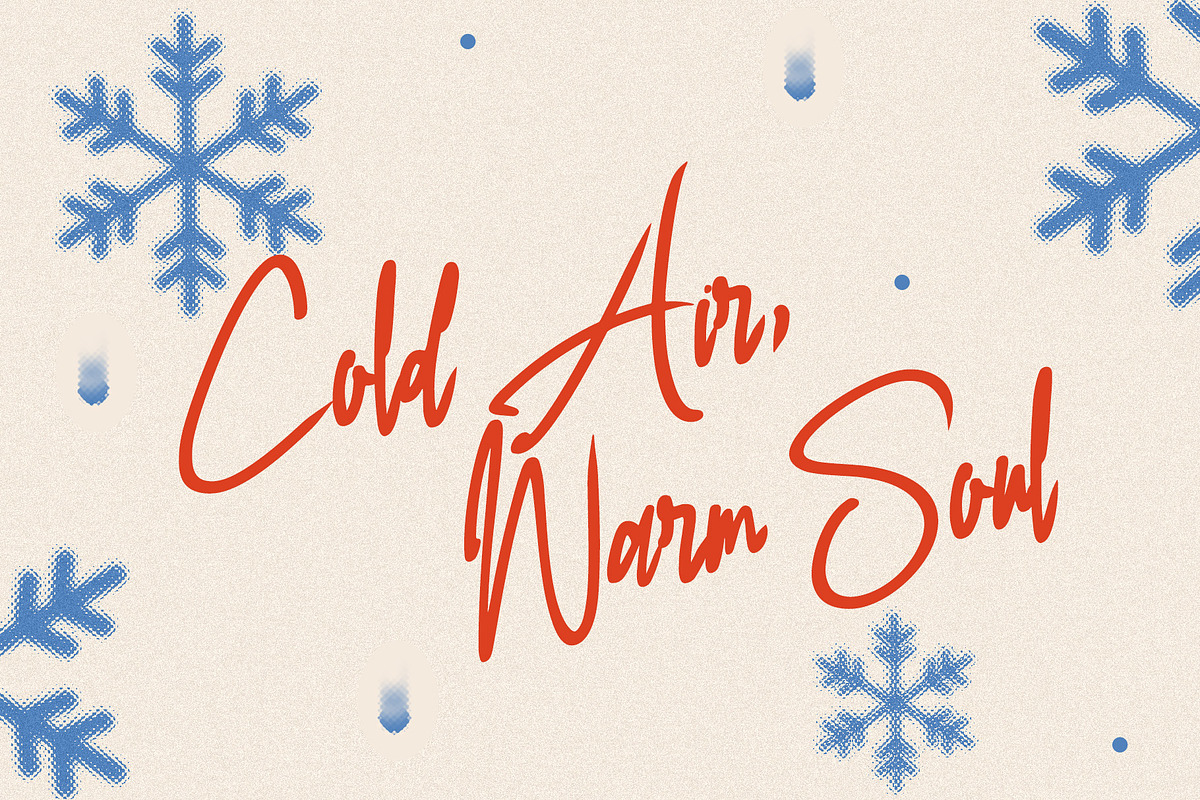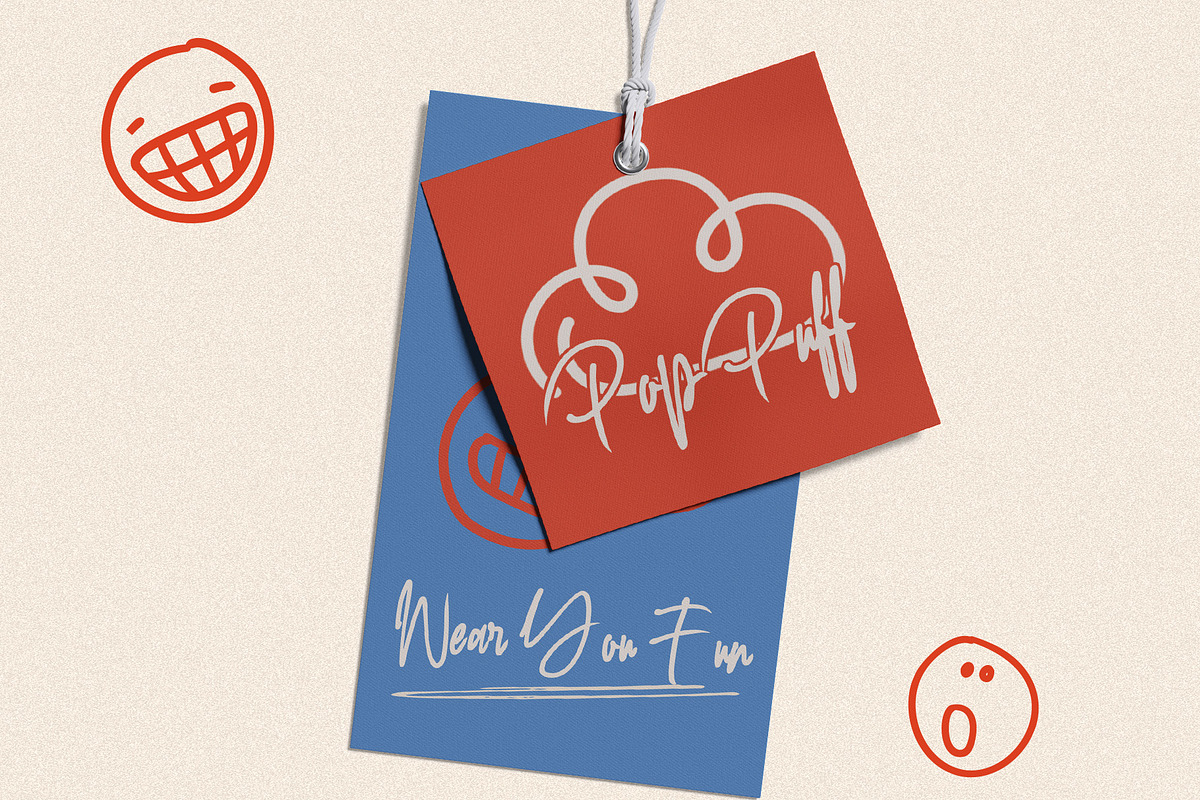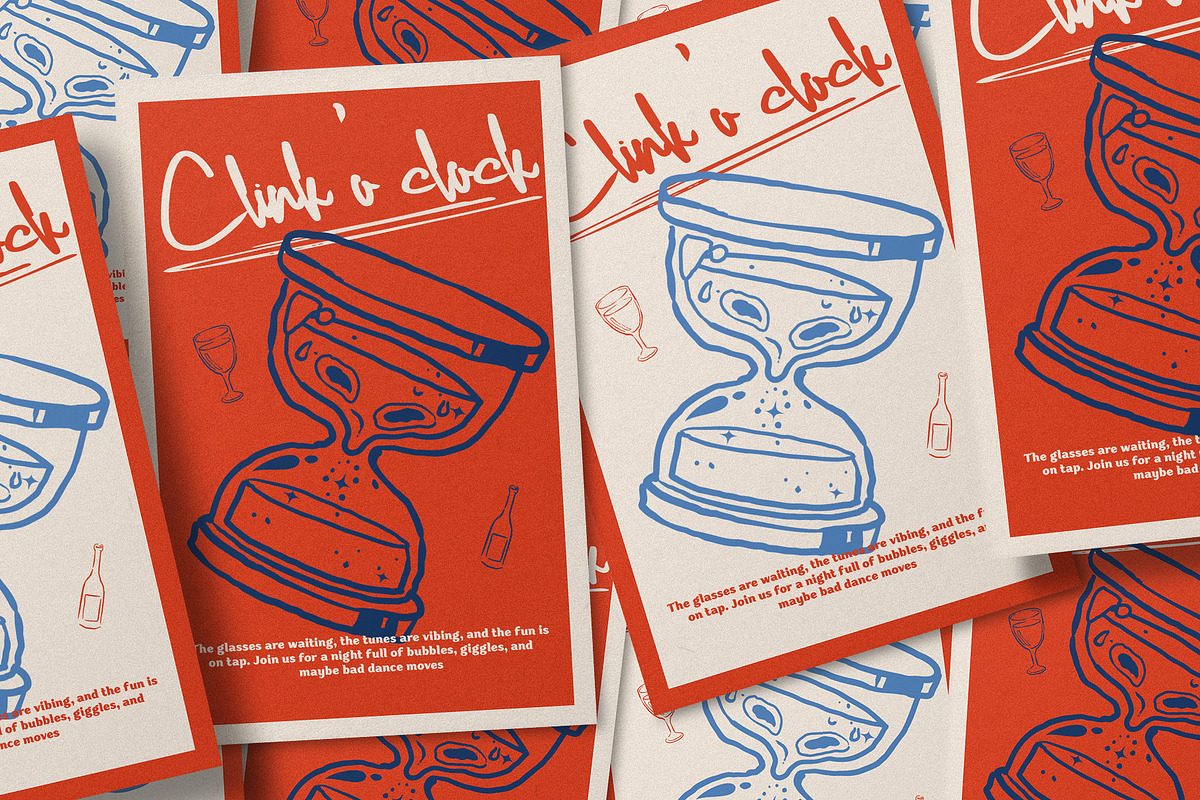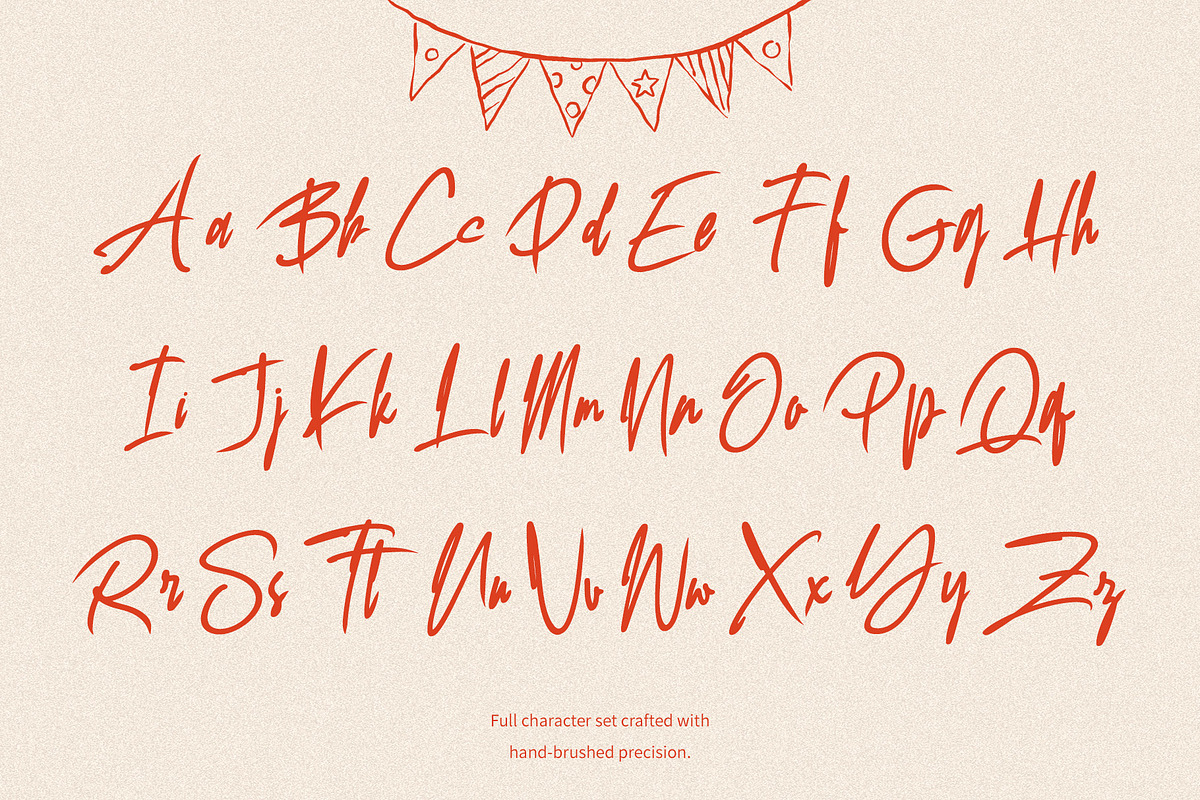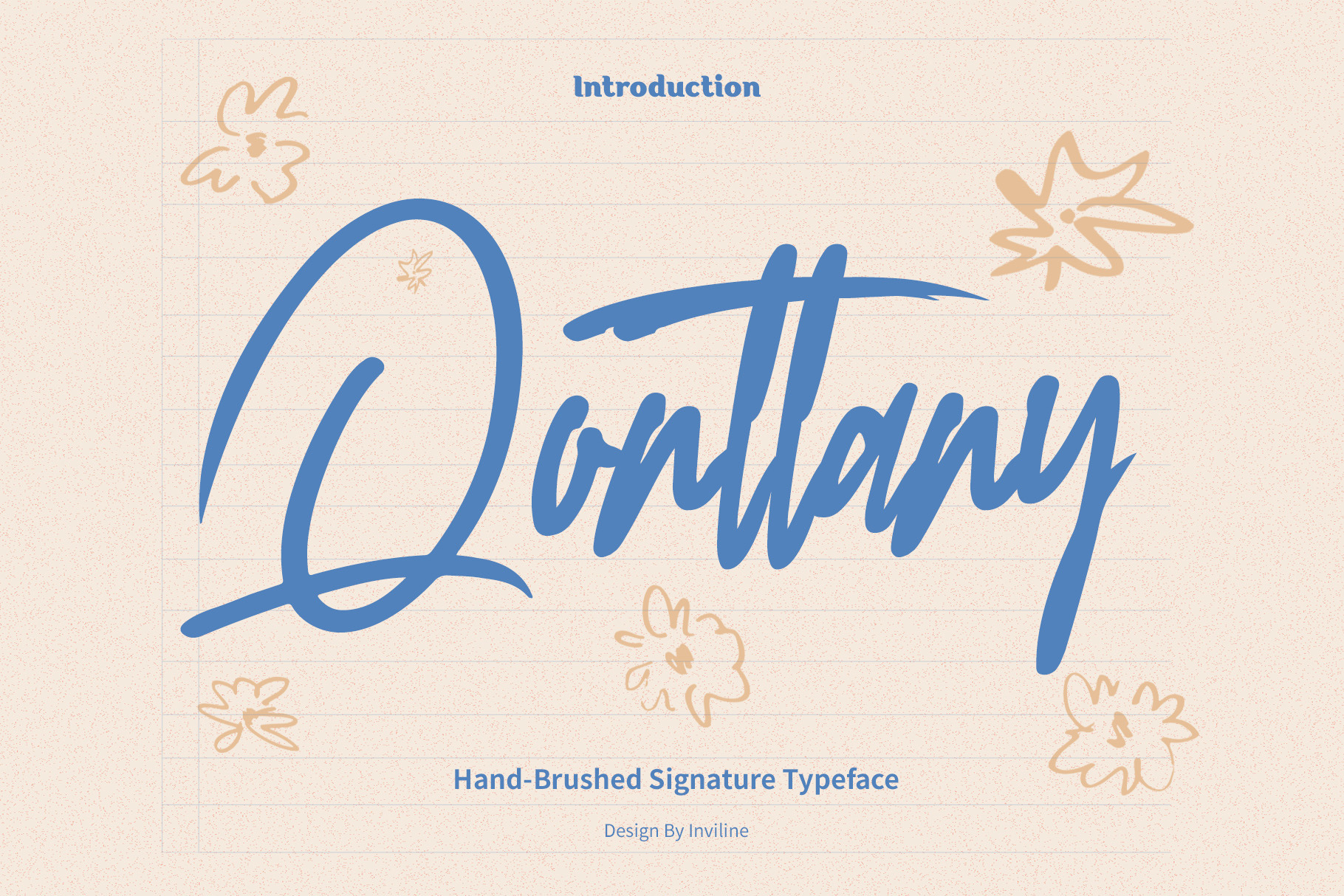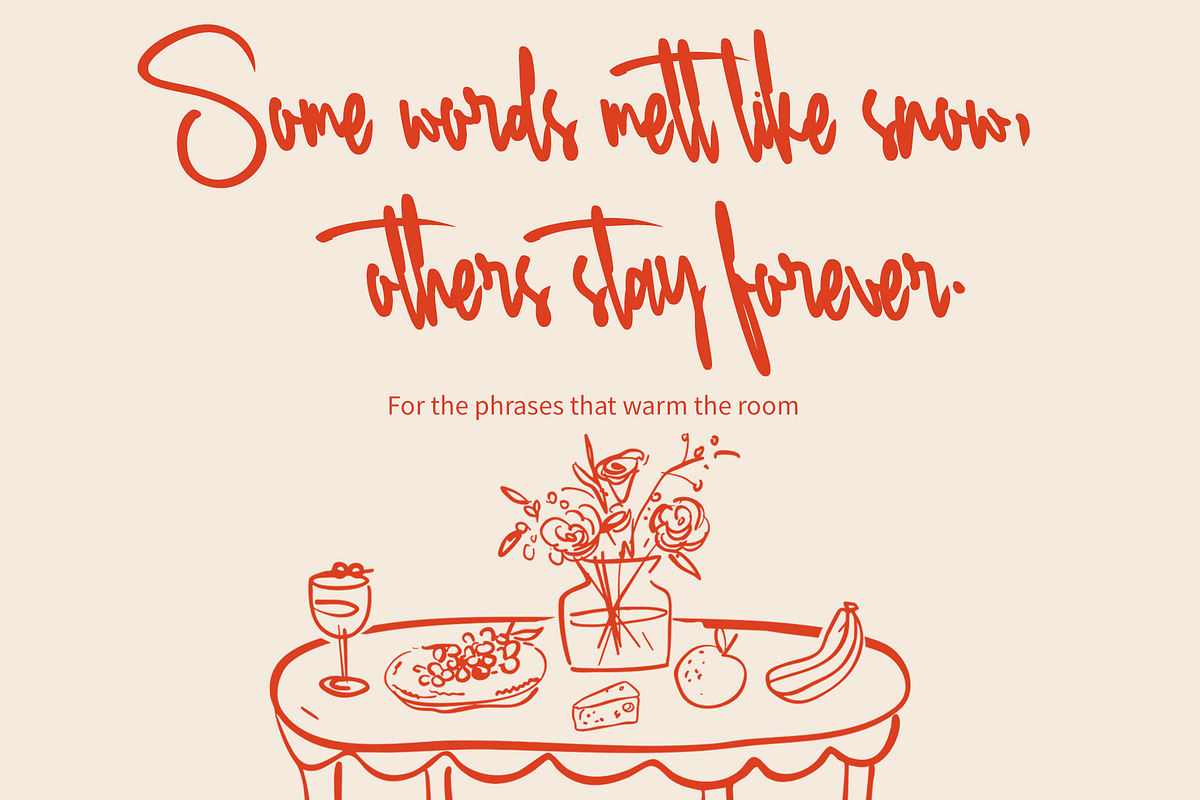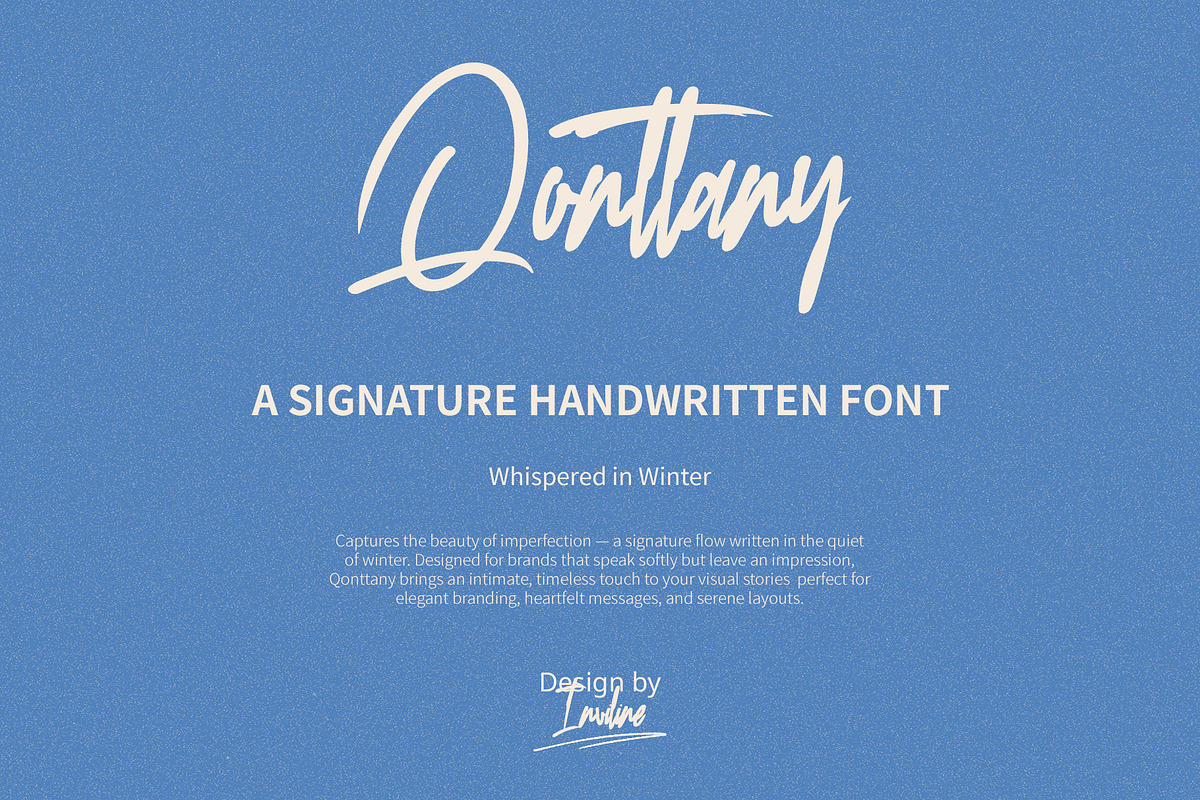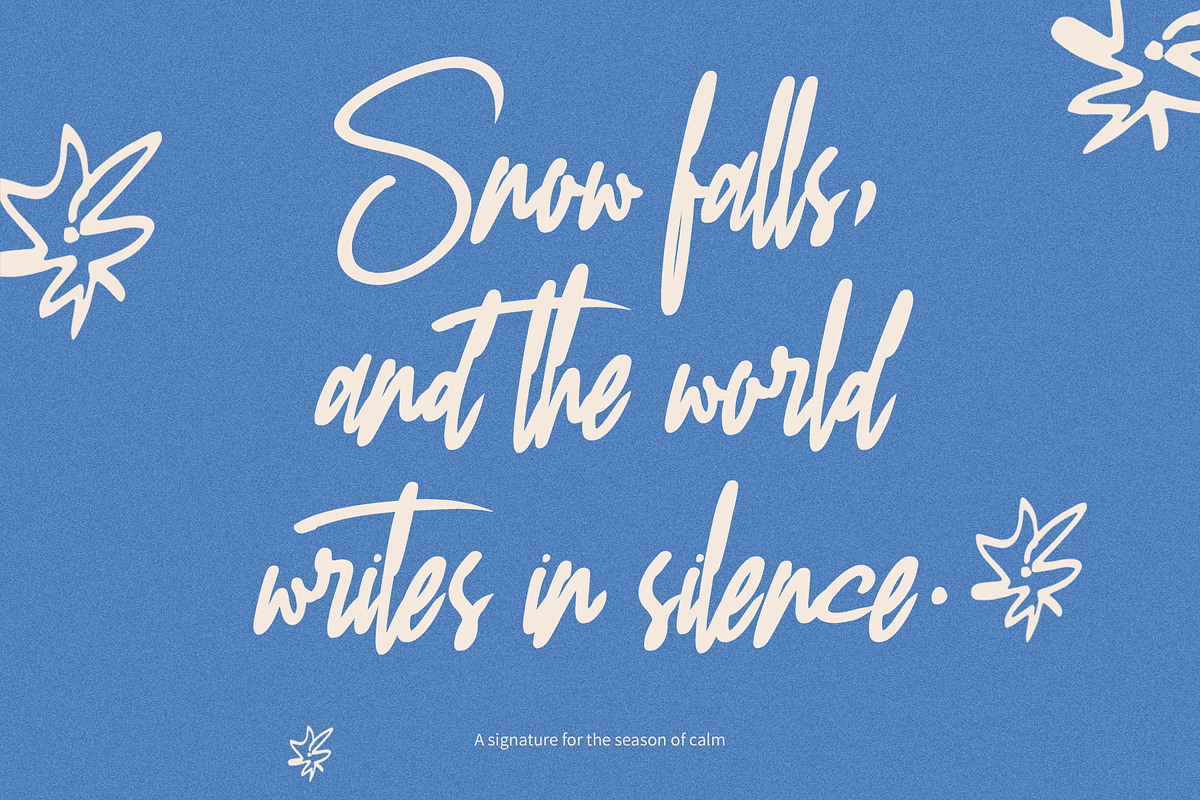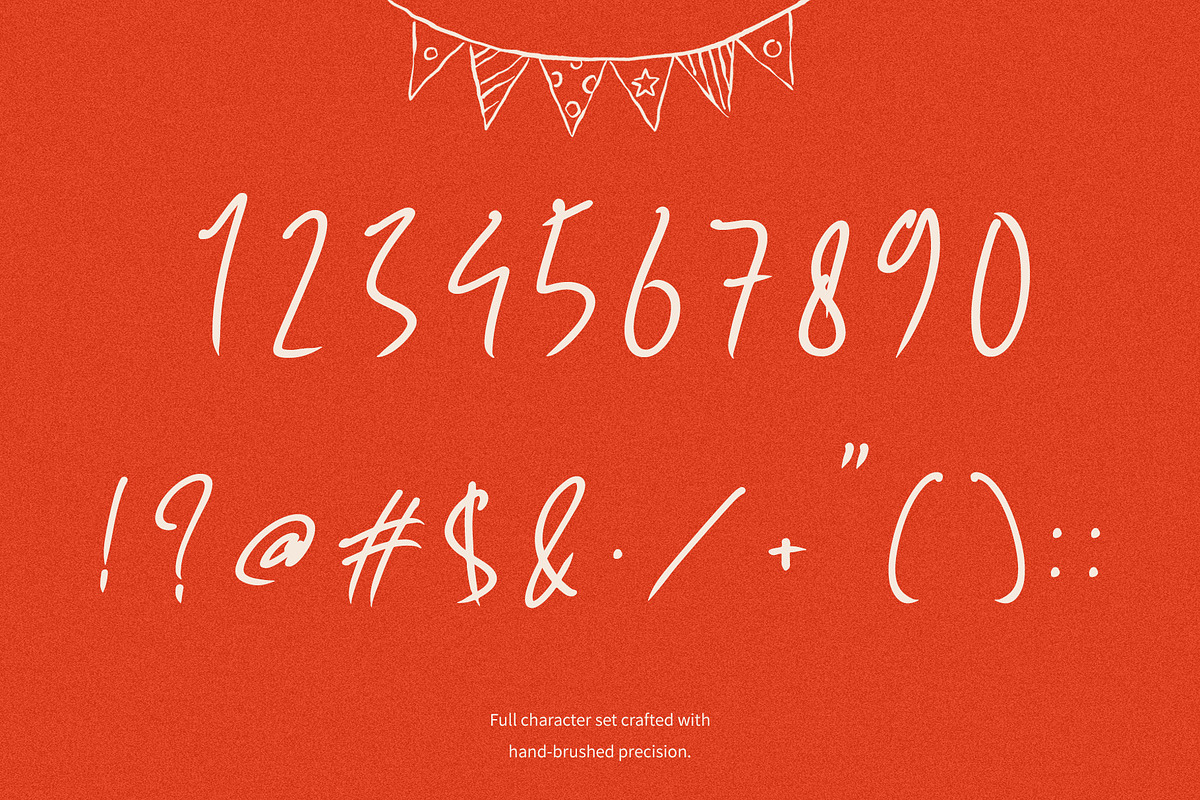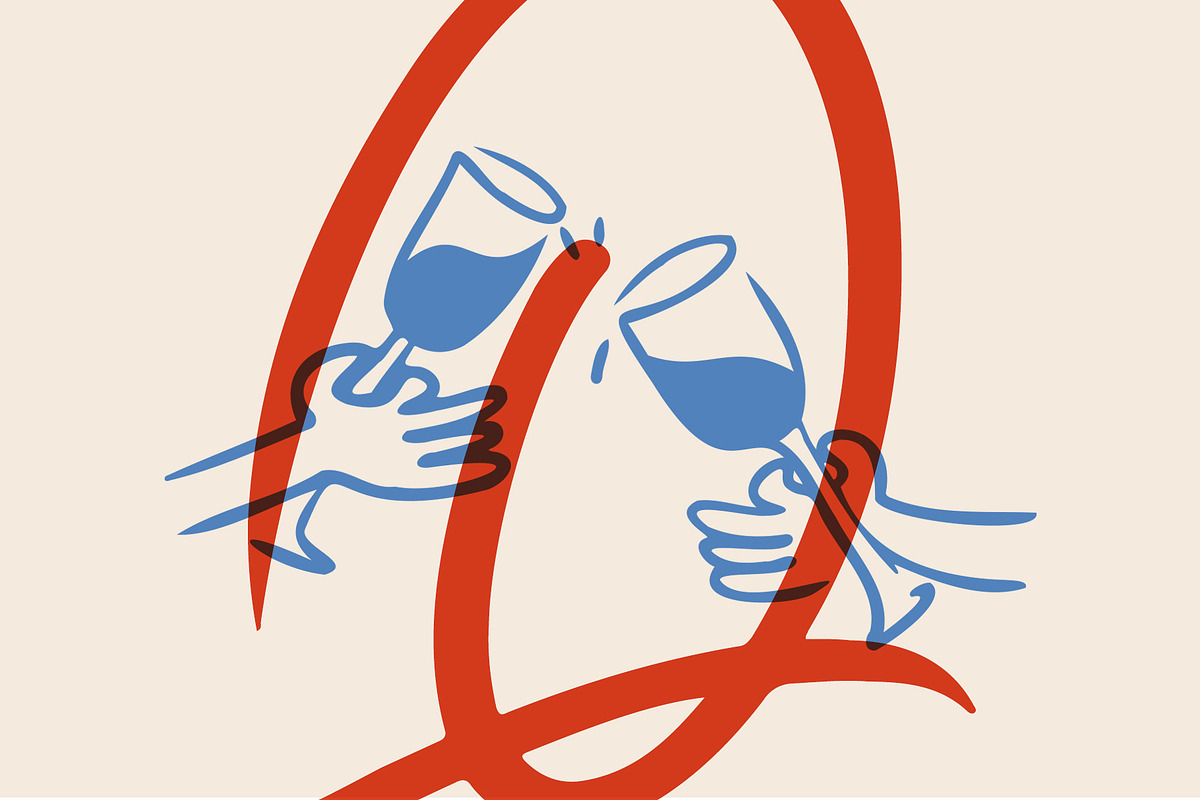
Qonttany - Brushed Signature Font
Qonttany is a hand-brushed signature typeface designed to capture the natural movement and personality of authentic handwriting. Its confident strokes, flowing connections, and slightly irregular texture create a warm, personal, and expressive appearance.
Created for modern projects that need a handcrafted touch, Qonttany balances casual energy with polished readability. It works beautifully for personal branding, lifestyle designs, inspirational quotes, product packaging, stationery, and creative social media content.
Overview
Qonttany combines expressive brush movement with a clean signature-style structure. Its sweeping capital letters, connected lowercase forms, and natural variations give every word an individual handwritten character.
The font is especially effective for names, logos, headlines, short phrases, and emotional statements. Its relaxed rhythm pairs naturally with soft colors, paper textures, doodle illustrations, photography, and editorial compositions.
Use Qonttany as the main display font, then combine it with a clean sans serif or simple serif typeface for captions, descriptions, and supporting information.
Qonttany hand-brushed signature font
Uppercase characters A–Z
Lowercase characters a–z
Numerals 0–9
Standard symbols and punctuation
Natural hand-brushed signature style
Flowing and expressive handwritten strokes
Confident uppercase letterforms
Smooth lowercase connections
Casual yet polished personality
Complete numerals
Standard symbols and punctuation
Strong readability at medium and large sizes
Suitable for print and digital projects
Ideal for logos, names, headlines, and short phrases
Works well with paper textures, illustrations, and photography
Easy to pair with serif and sans serif typefaces
Suitable for lifestyle, personal, and creative branding
Ideal For / Use Cases
Signature logo design
Personal branding
Lifestyle branding
Beauty and wellness identities
Creative studio logos
Inspirational quotes
Photography overlays
Greeting cards
Invitations
Personal stationery
Product packaging
Labels and tags
Editorial headlines
Magazine layouts
Book covers
Blog graphics
Website hero titles
Digital products
Printable artwork
Journal designs
Scrapbook projects
Thank-you cards
Promotional graphics
Handmade product branding
Use Dontany at medium or large sizes to showcase its natural brush details and flowing signature forms. It is most effective for names, logos, headlines, quotes, and short phrases rather than long paragraphs.
Pair it with a clean sans serif font for body copy and supporting information. Adjust tracking, line spacing, and alignment when creating multi-line compositions.
Best used for medium and large display typography
Long brush strokes may require additional spacing or manual positioning